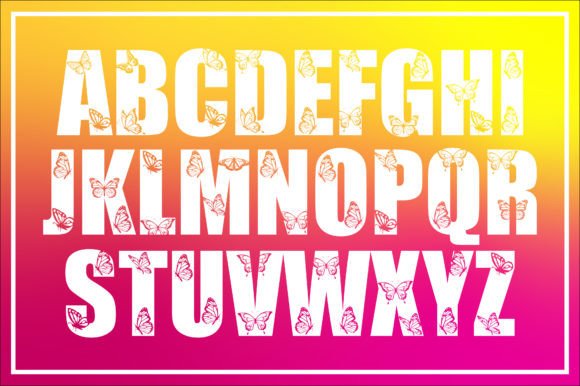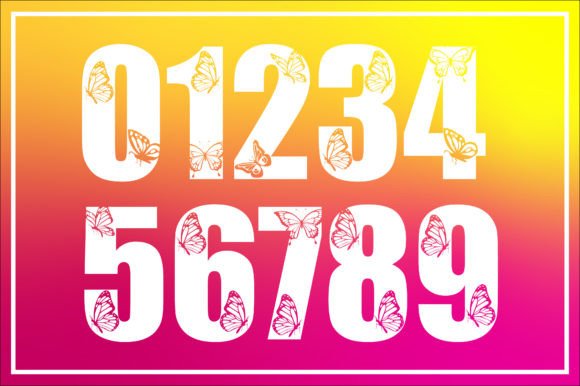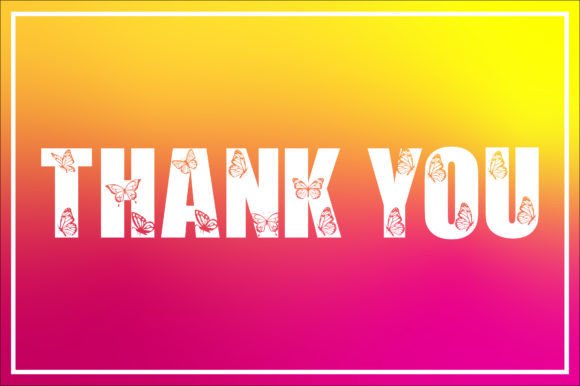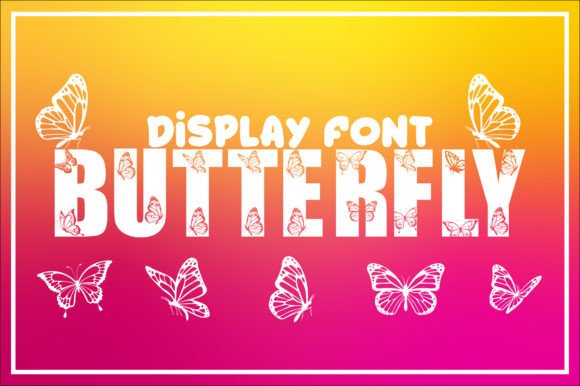
The Magical World of Butterfly Font: A Designer’s Delight
Butterfly is a cool and original-looking decorative font that’s perfect for adding a touch of joy to any design project. Whether you’re working on cartoon-related designs, children’s games, quotes, titles, brand names, book covers, posters, or just any creation that requires a dash of whimsy, this font is a great choice.
- Unique and playful design that’s sure to grab attention ✅
- Perfect for kids’ projects, games, and educational materials 📚
- Works well for titles, headings, and short paragraphs of text 📄
- Can be used for branding and packaging projects, especially for kids’ products 🎁
- Might not be the best choice for body text or long paragraphs of text, as it can be a bit hard to read ⚠️
- Some characters may not work well in all contexts, so be sure to test it thoroughly before finalizing your design 📝
Exploring OpenType Features and Glyphs 🌈
One of the best things about the Butterfly font is its OpenType features and glyphs. With a range of stylistic alternates, ligatures, and swashes, you can customize your text to fit your design style. Here are a few tips for accessing these features:
The Story Behind Butterfly Font 🌟
Butterfly font was designed by a team of creatives who wanted to create a font that would bring joy and whimsy to design projects. Inspired by the beauty and playfulness of butterflies, they crafted a font that’s both fun and elegant. Today, Butterfly font is used by designers and crafters around the world to add a touch of magic to their creations.
Q: Is the Butterfly font suitable for body text or long paragraphs?
A: While the Butterfly font is beautiful and playful, it may not be the best choice for body text or long paragraphs, as it can be a bit hard to read. It’s best used for titles, headings, and short bursts of text.